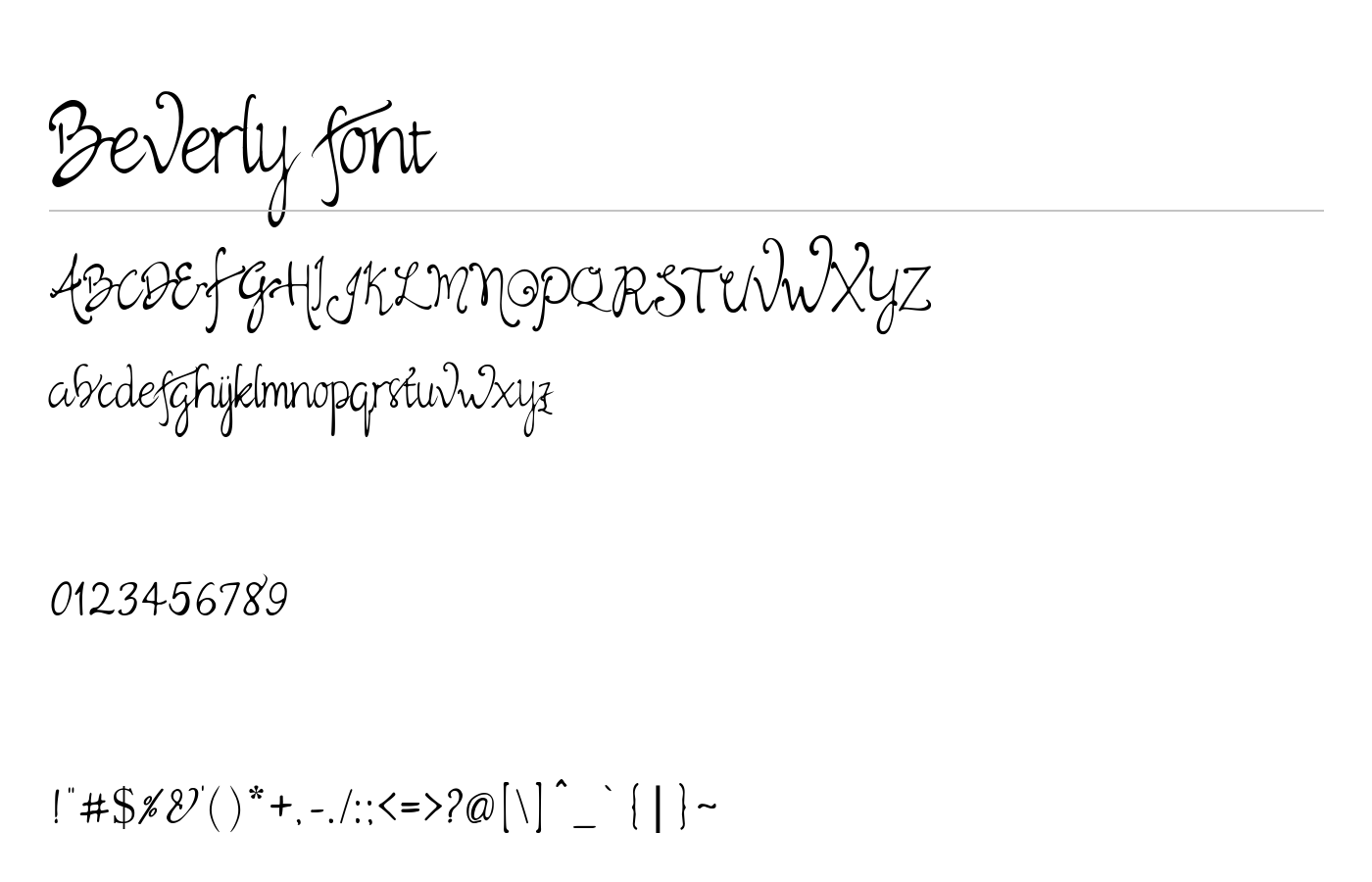
Beverly is a delicate, handwritten script font with elegant, flowing strokes and a slim, airy feel. Its unique curls and loops add a playful yet sophisticated personality, making it ideal for creative projects, invitations, and branding that seeks a personal, artistic touch. This font works best in decorative uses where a light, charming style is desired.
Beverly font